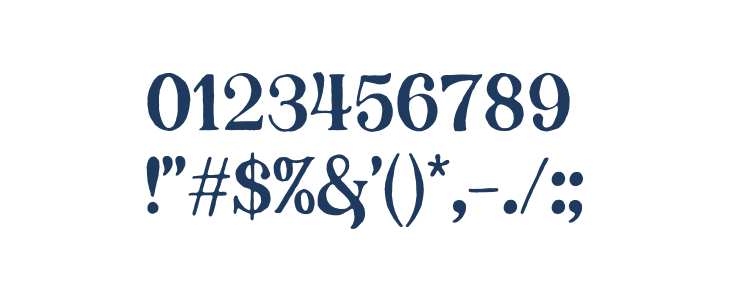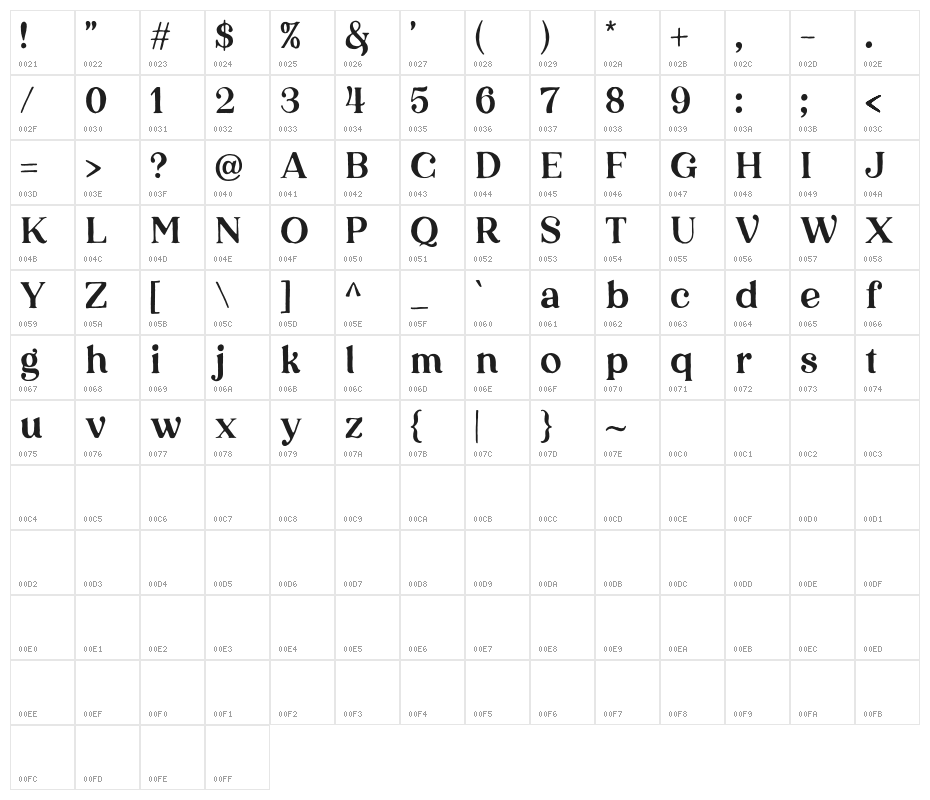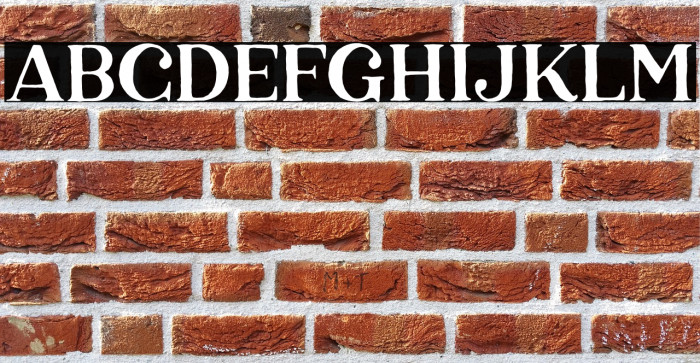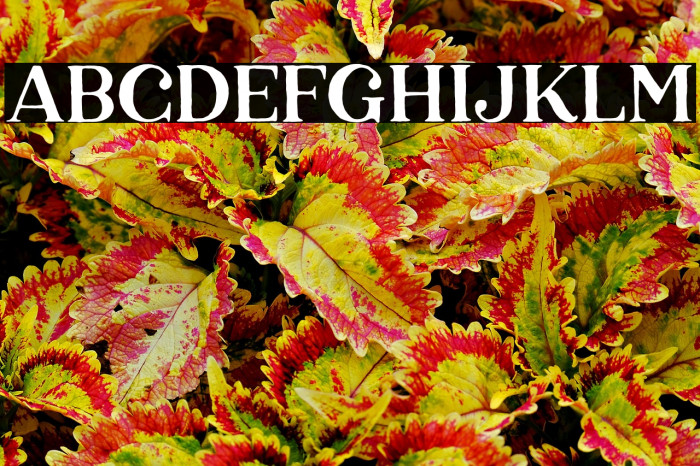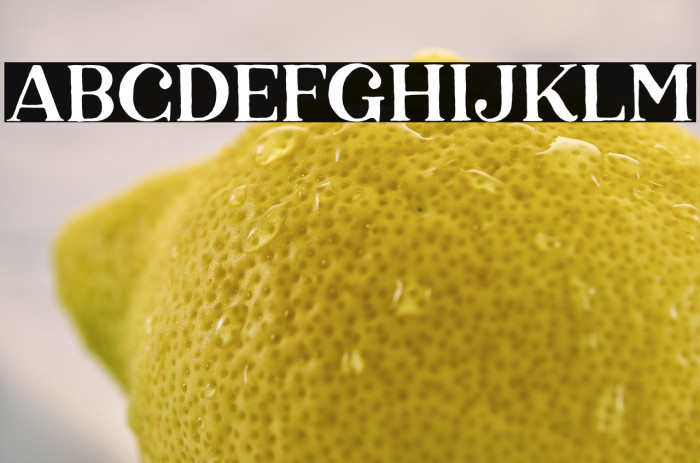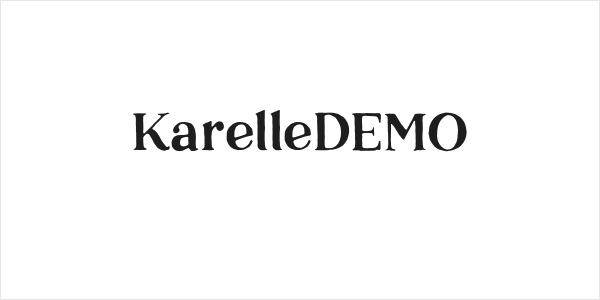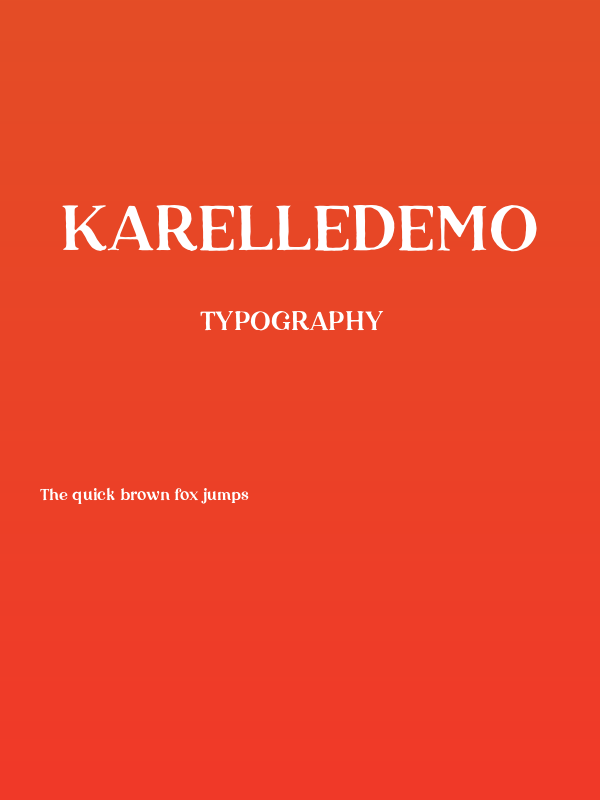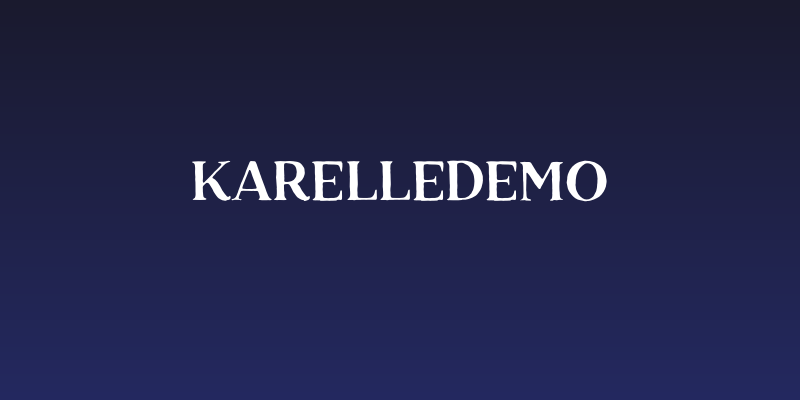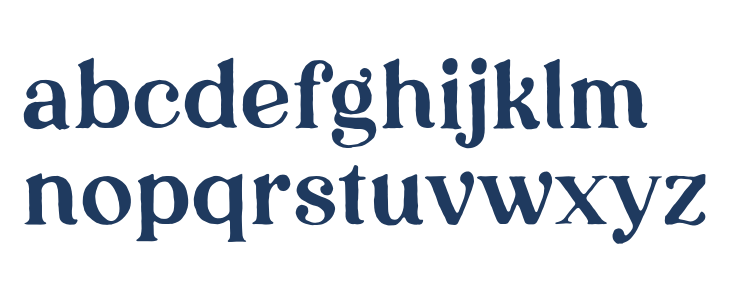
KarelleDEMO Font
KarelleDEMO Description
This font features a bold and expressive style with a classic serif design. The uppercase letters are strong and pronounced, while the lowercase letters maintain a consistent flow with slightly rounded edges. The numerals are robust and clear, ensuring readability. Special characters are crafted with the same attention to detail, providing a cohesive look across all glyphs. The overall appearance is both traditional and impactful, making it suitable for a variety of design needs.
| Proposed Projects | Ideal for book covers, posters, branding materials, and editorial design where a classic yet bold statement is needed. |